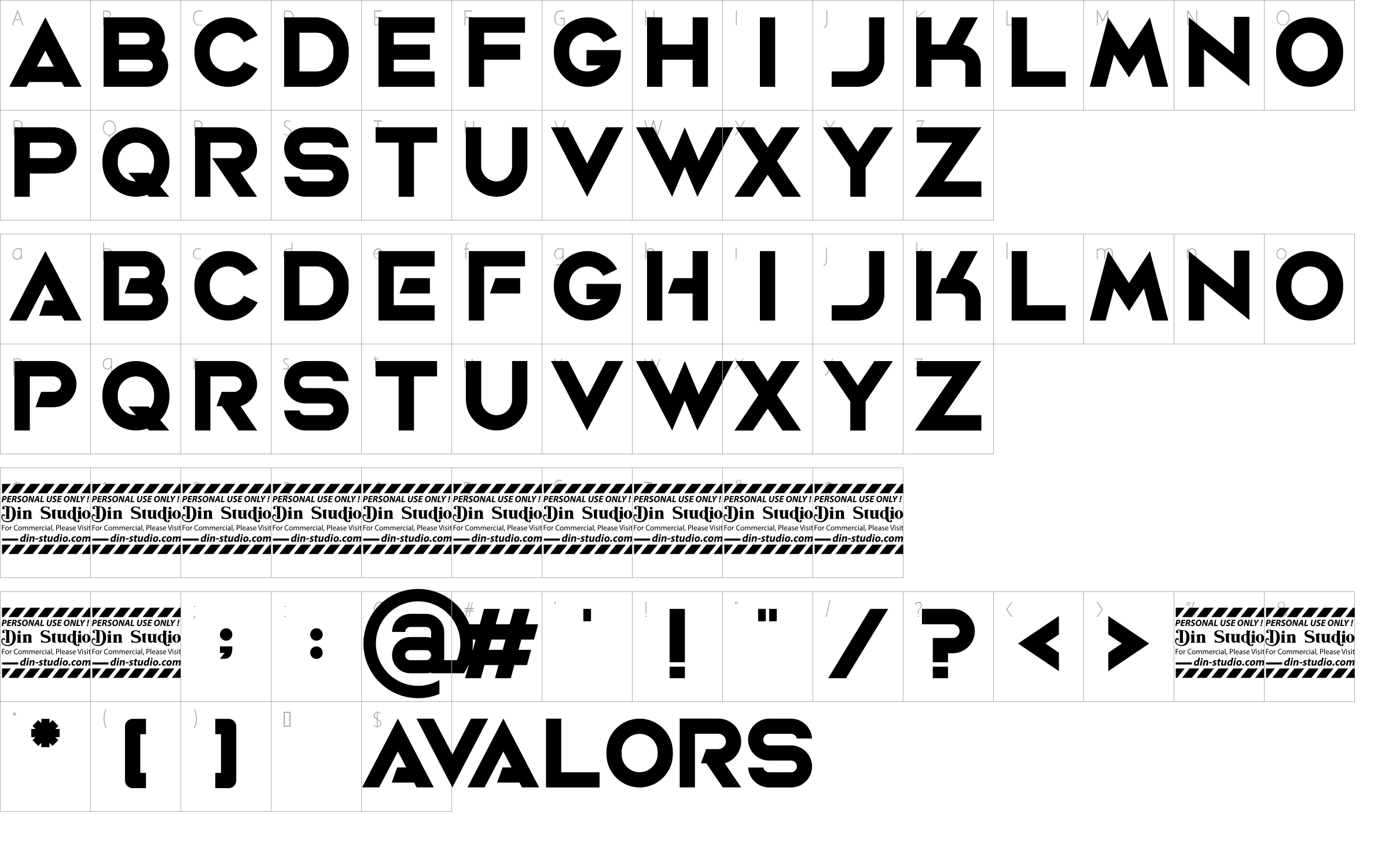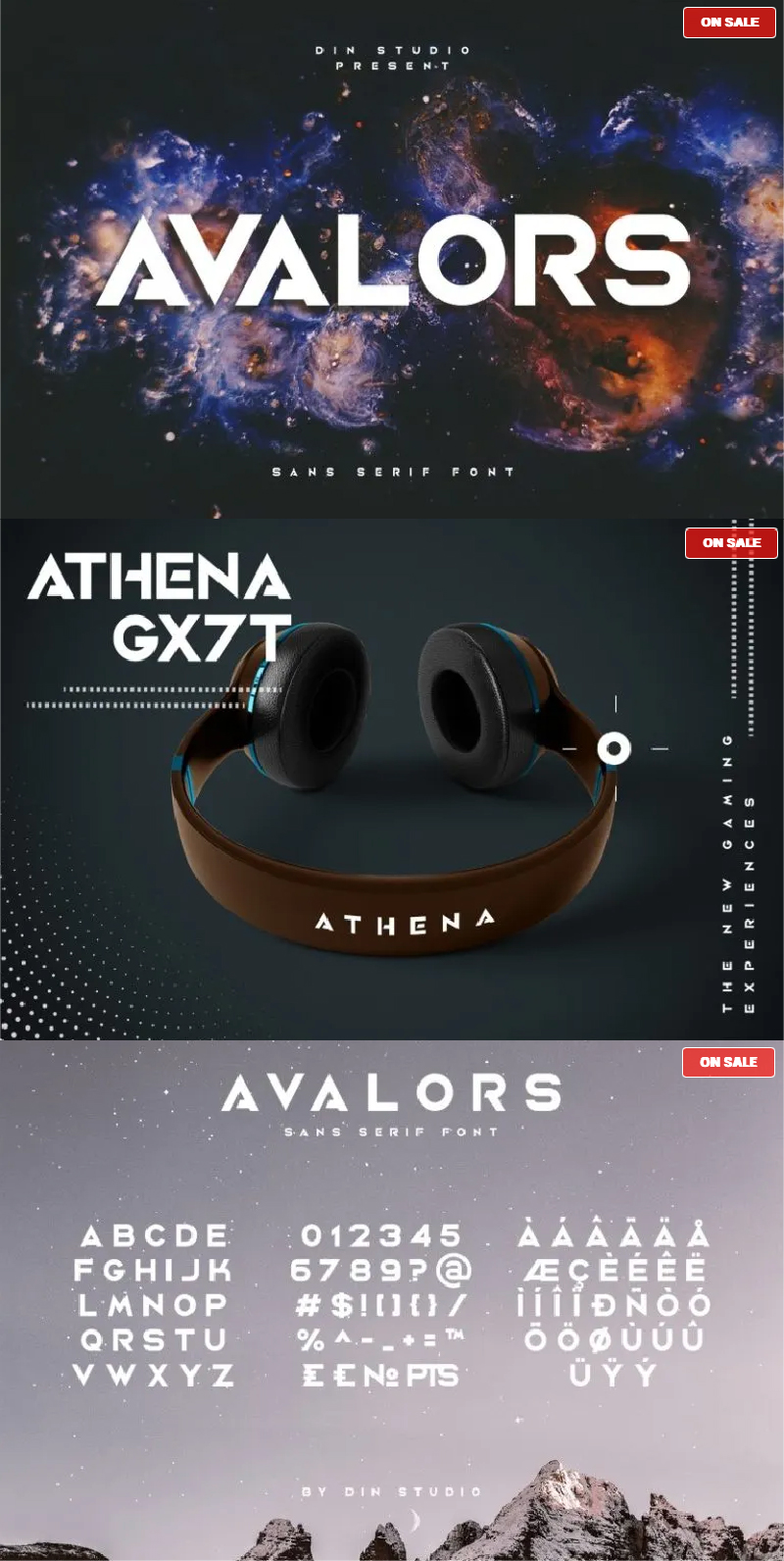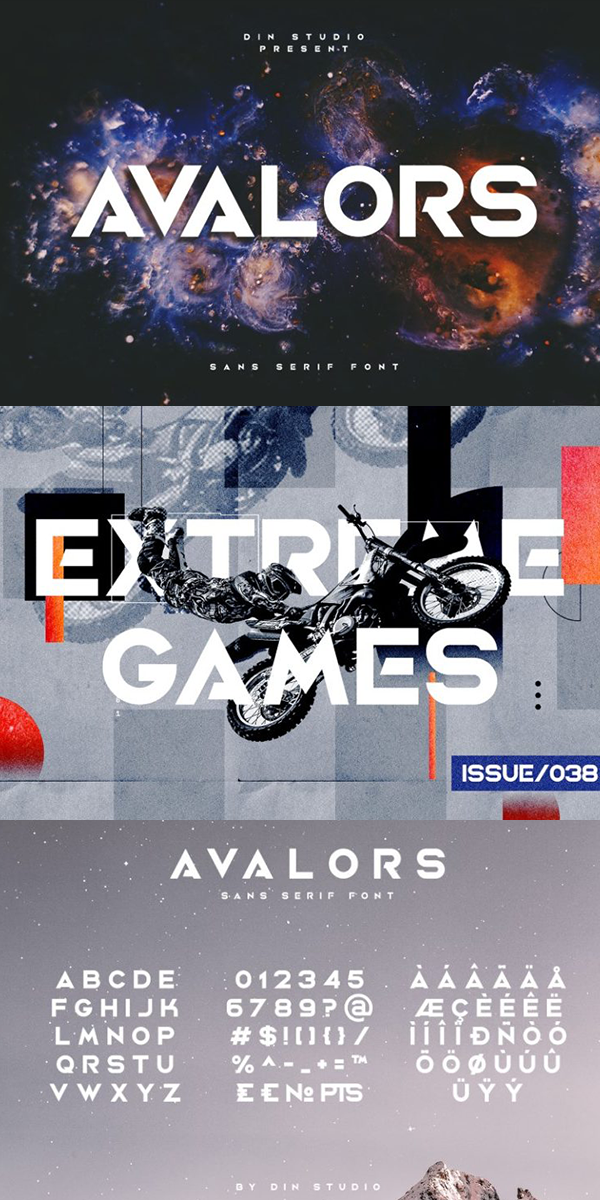
AVALORS Font
About AVALORS
Hello, Everyone! Say hello to Avalors. Avalors is a bold and authentic sans serif font. It suitable for your any project that needs the outer space touch. This font is the best for branding project, t-shirt print and many more. See the previews above to get some inspiration on how you can use them. Enjoy the font!